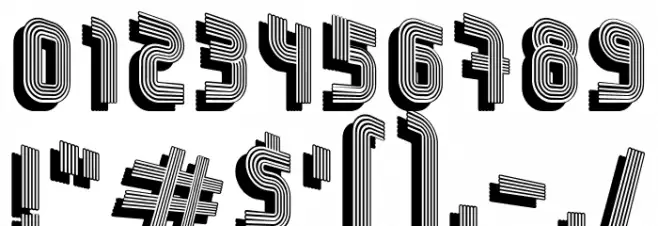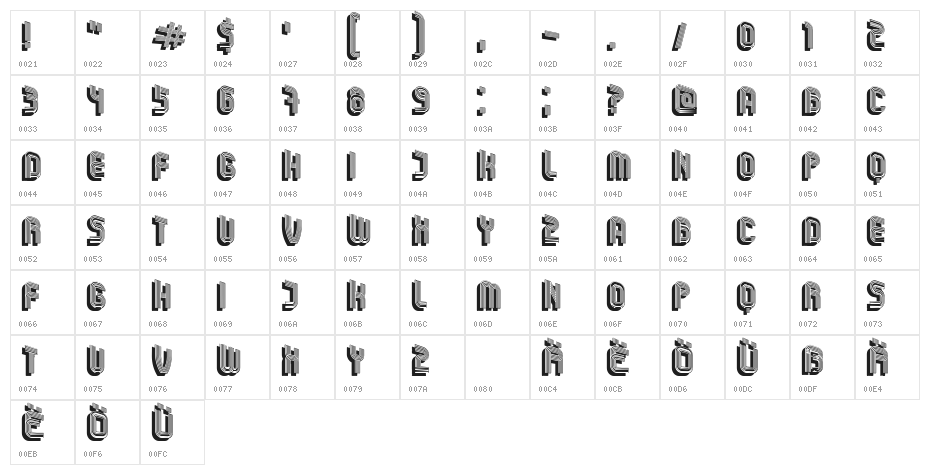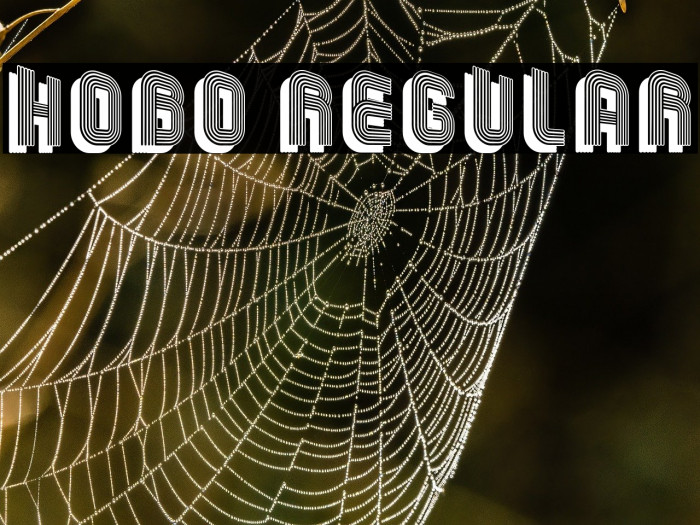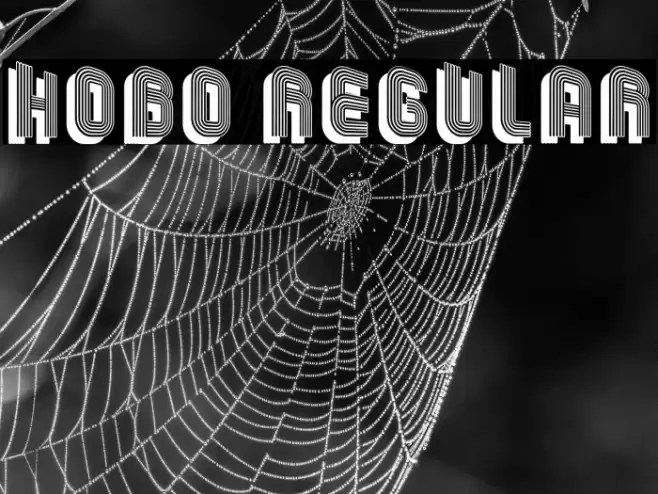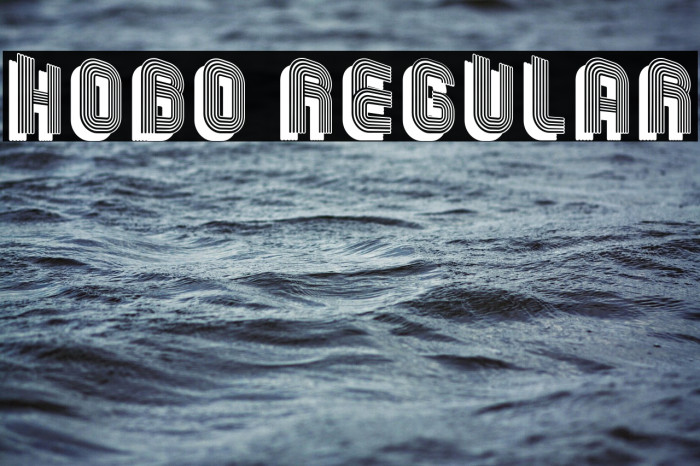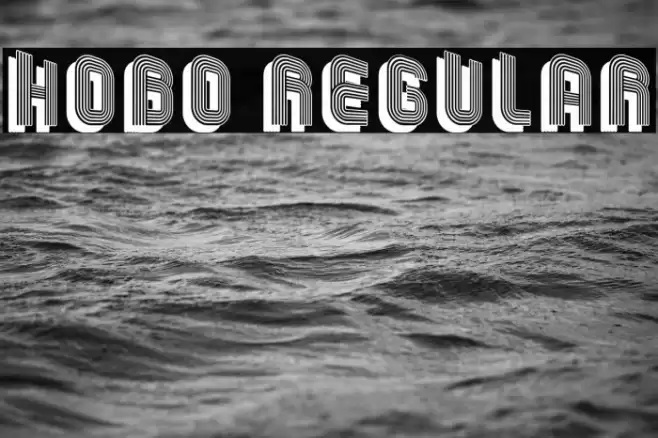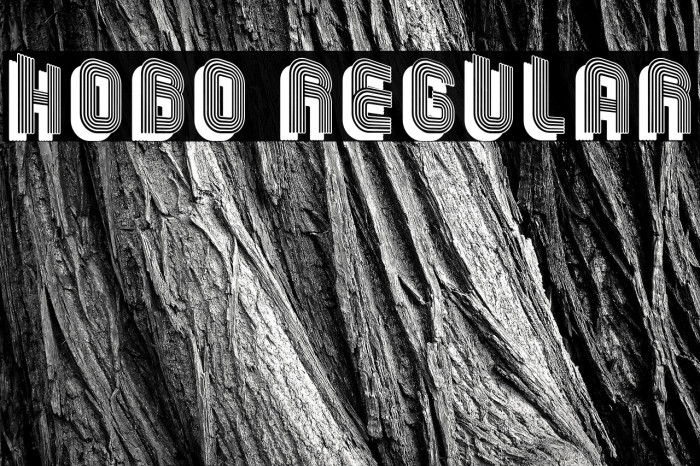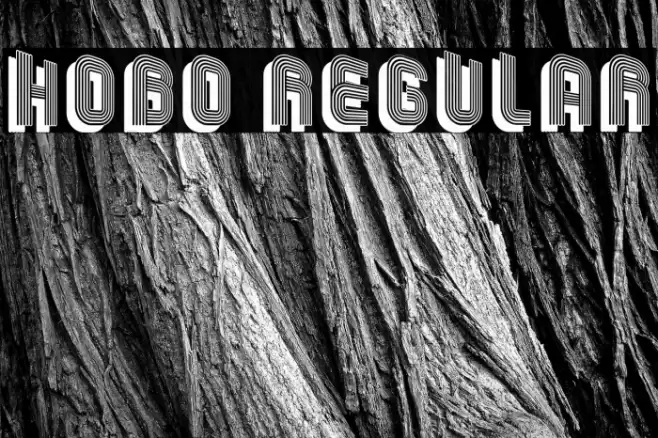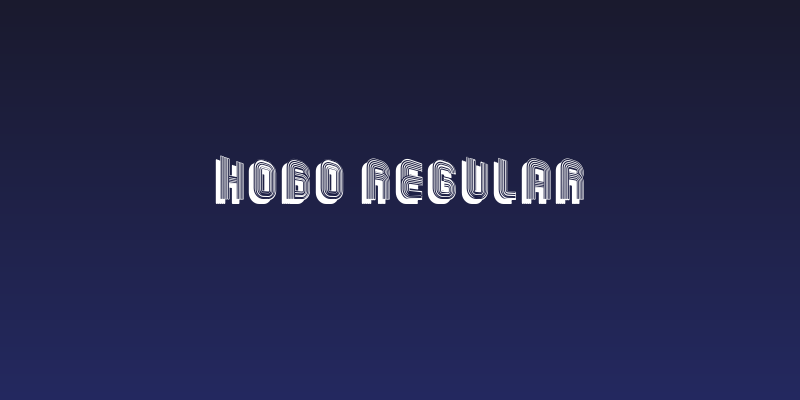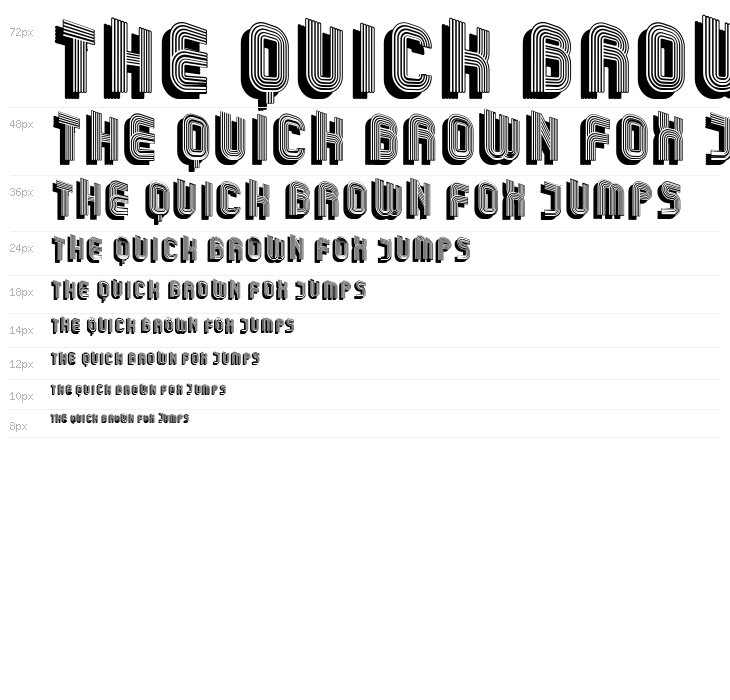
Hobo Regular Font
Hobo Regular Description
This font features a bold, decorative style with a unique three-dimensional effect created by multiple parallel lines. The characters have a rounded, playful appearance, with no sharp edges, giving it a friendly and approachable feel. The design is consistent across all letters and numbers, maintaining a uniform look that is both eye-catching and distinctive. The font's structure is solid and robust, making it suitable for various creative applications where a strong visual impact is desired.
| Proposed Projects | Ideal for posters, logos, branding, and any design project that requires a bold and playful aesthetic. |